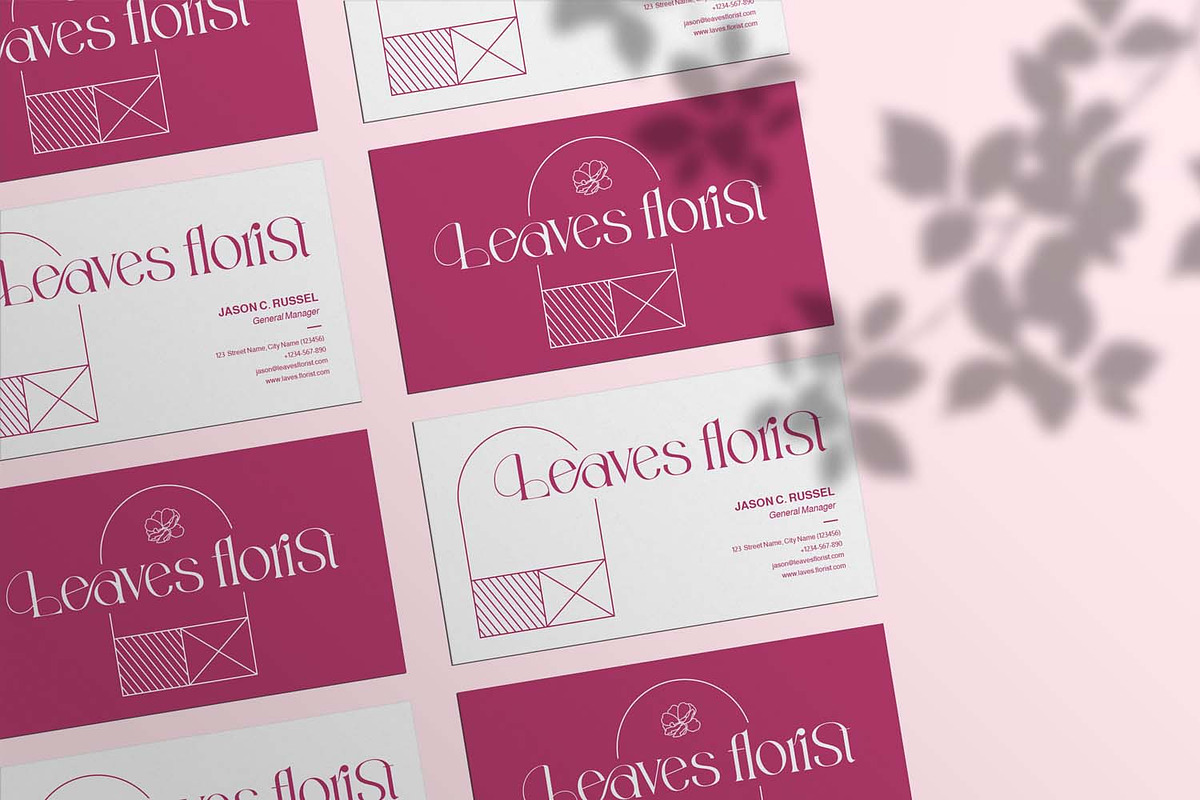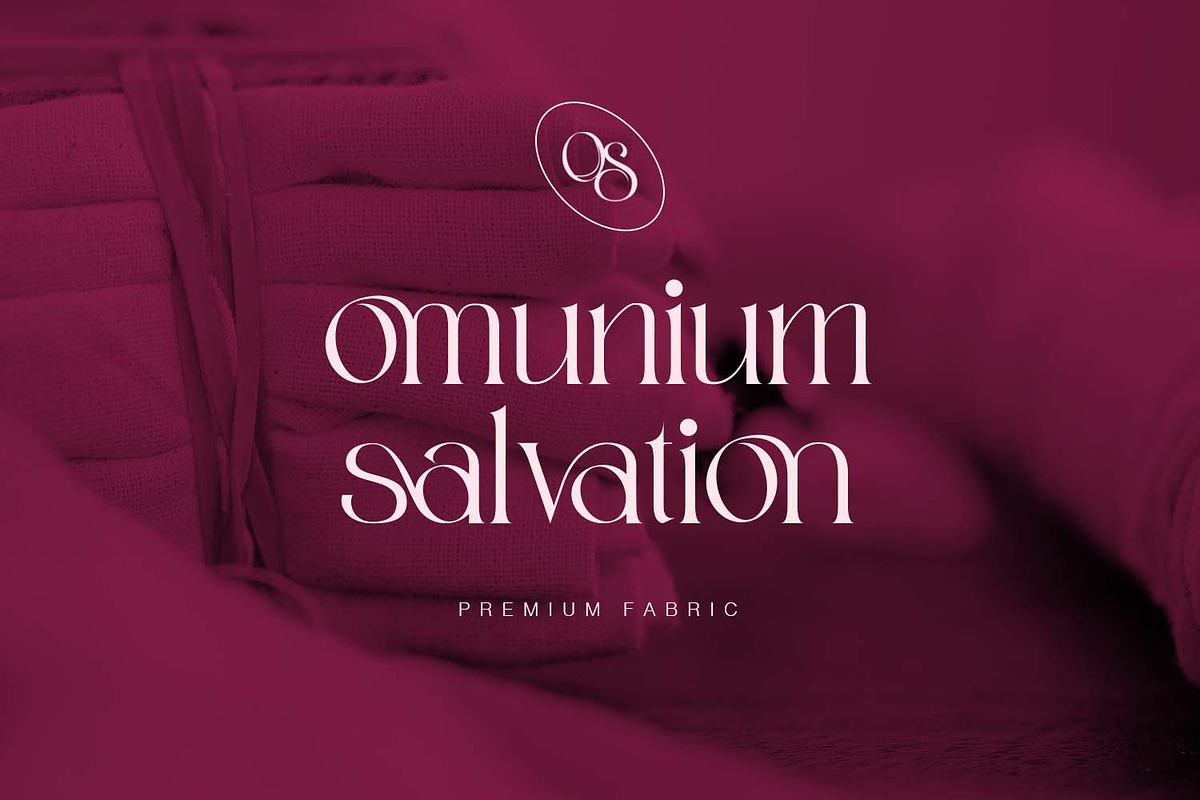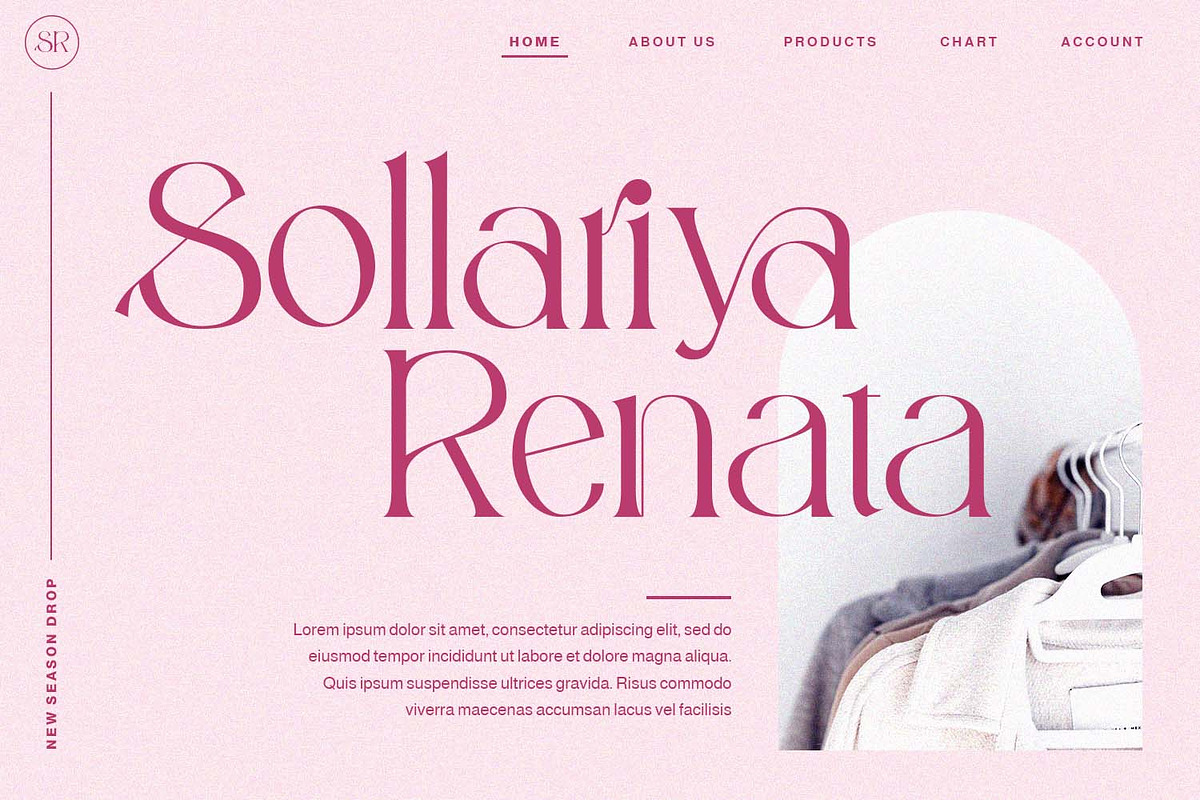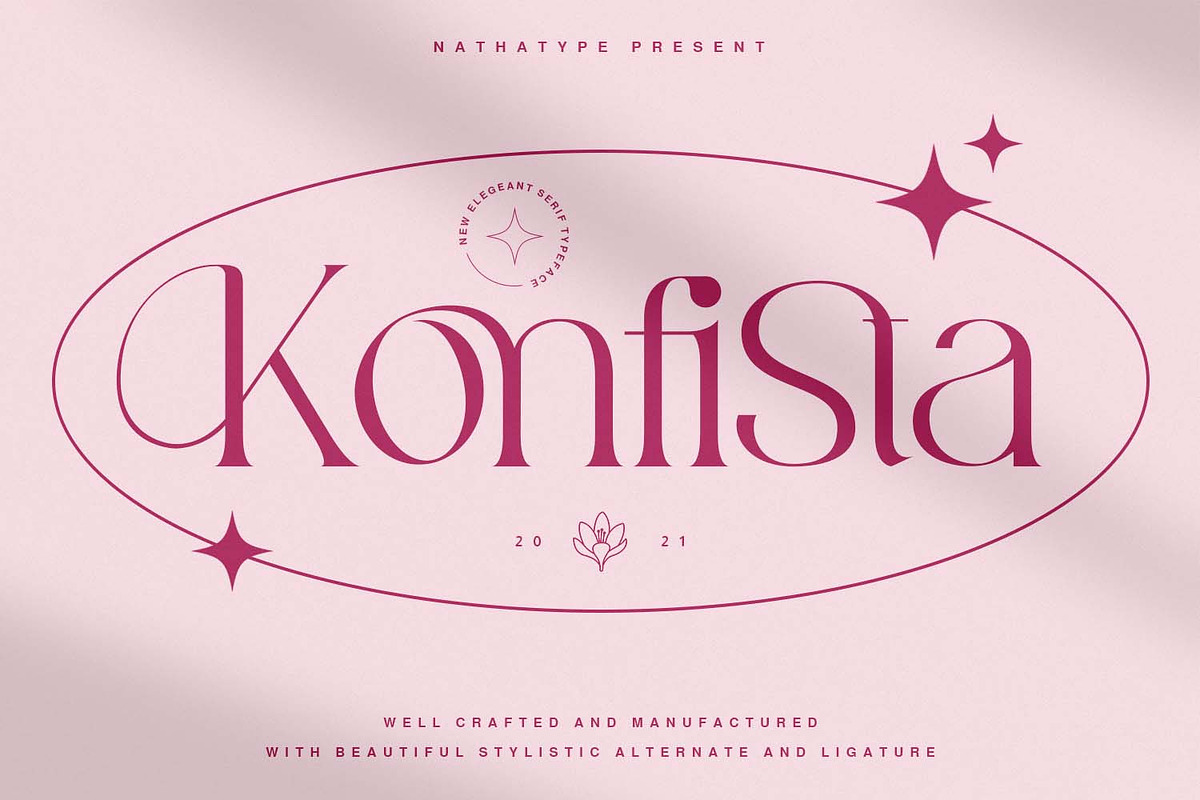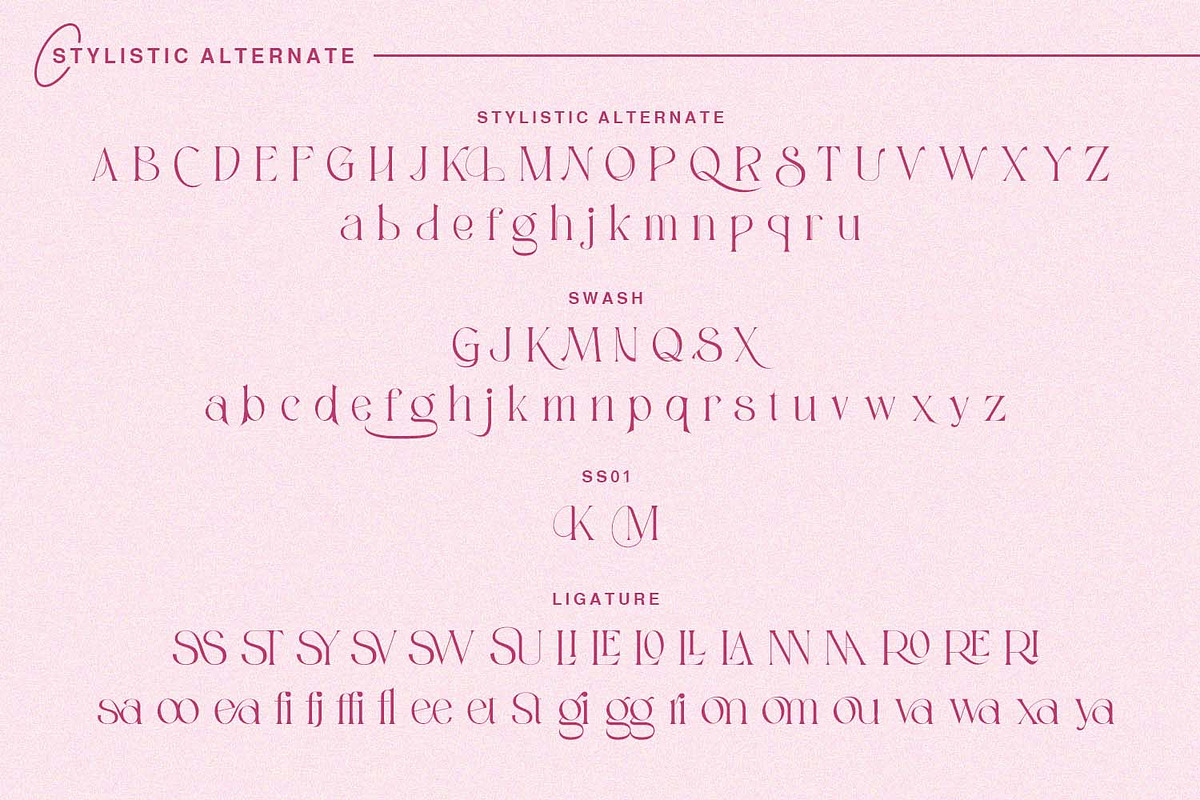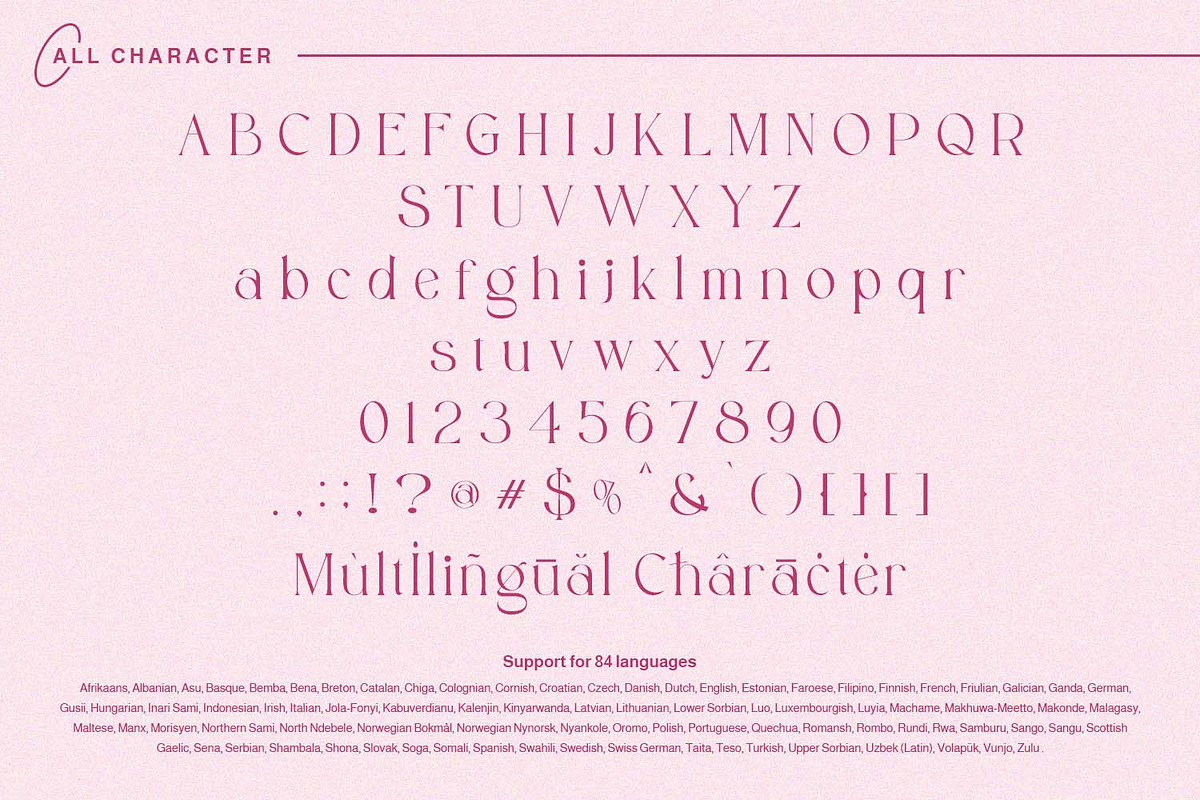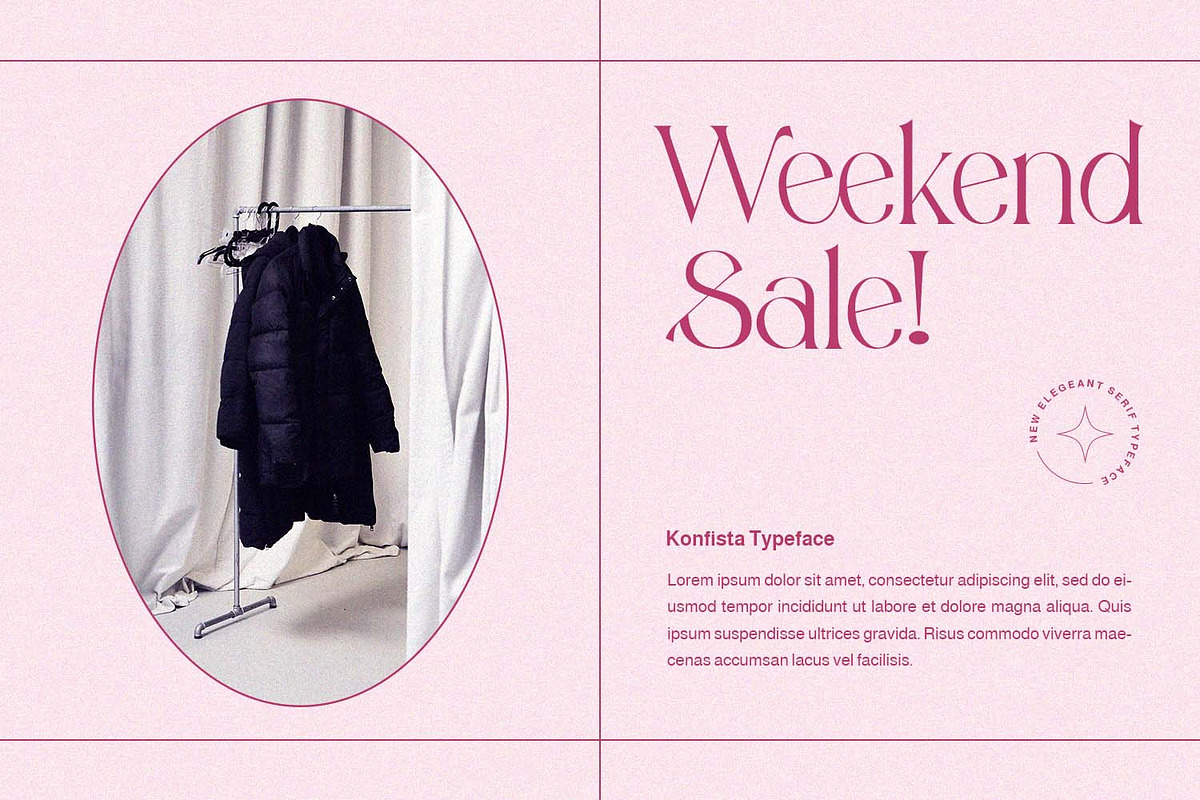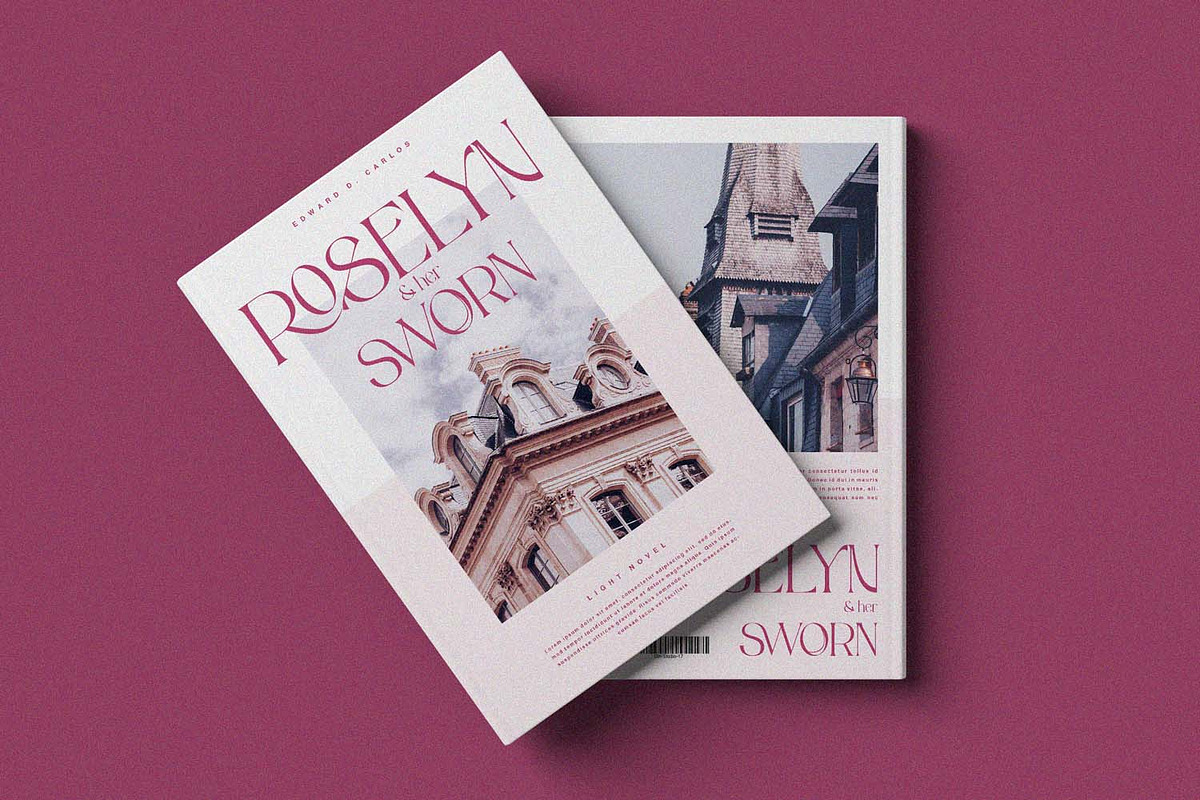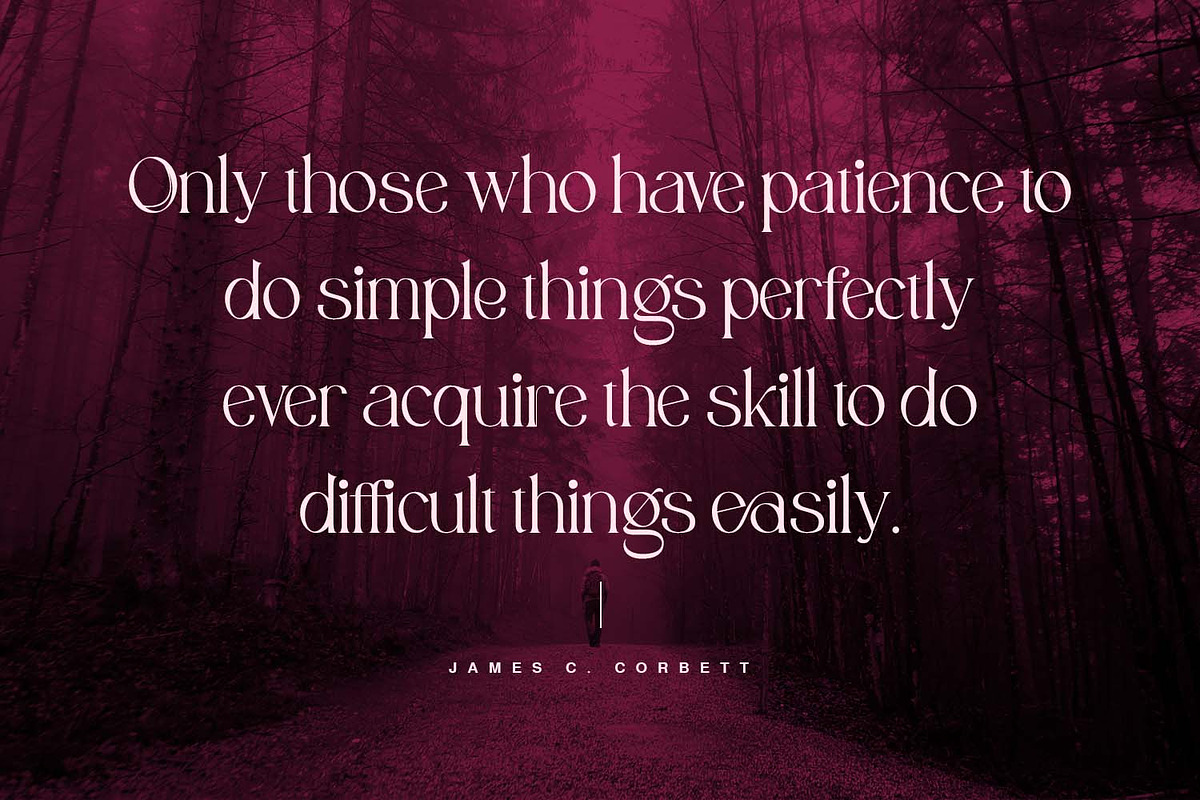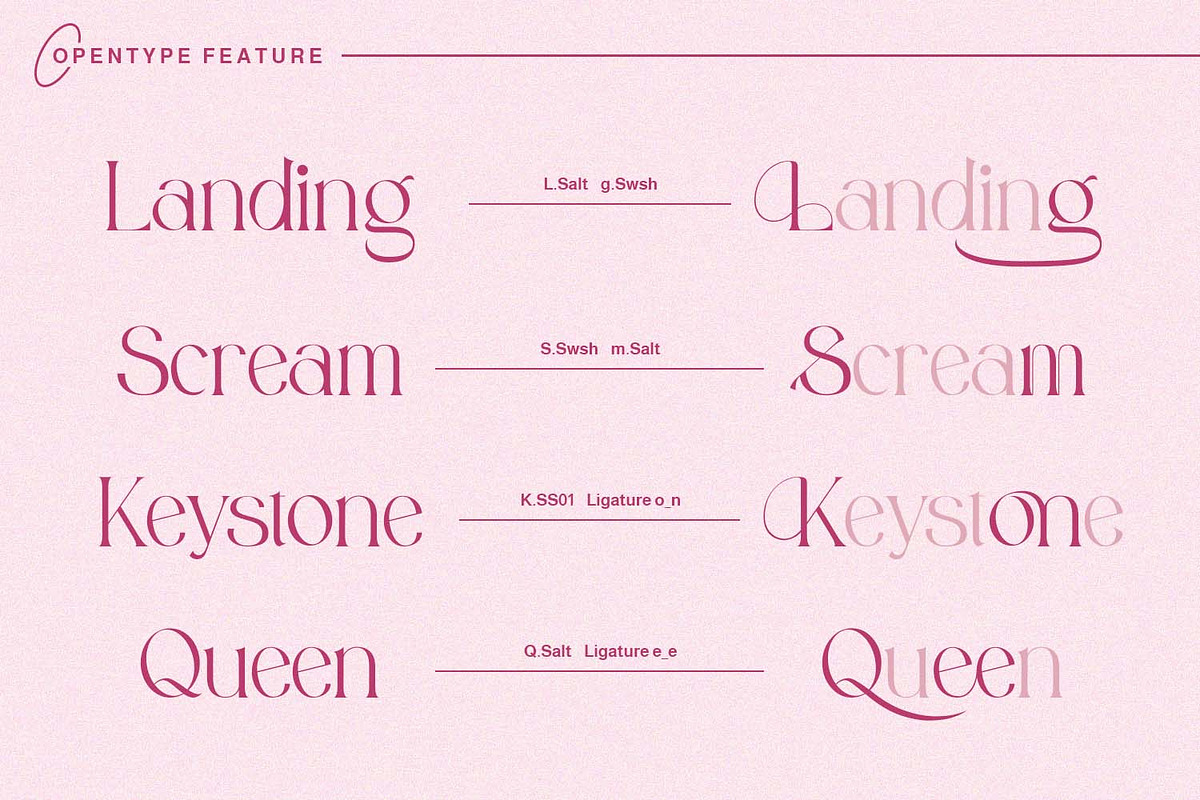
Konfista
Searching for a font that’ll make your branding radiate elegance? Do you dream of creating headings that stand out and inspire creativity, imagination, and endless fun? Then we’ve got just the font for you!
Konfista- A Serif Font
Konfitsta is one of the most stylish font designed to create the perfect contrast between your headings and body copy. Bring your branding to life and add a touch of modernity and style with Konfista. Ideal for social media banners; posts, and ads, printed quotes, t-shirt designs, packaging, or even as a modern text overlay to any background image.
Our font always feat Multilingual Option to make your brand globally acceptable
- Stylistic Set